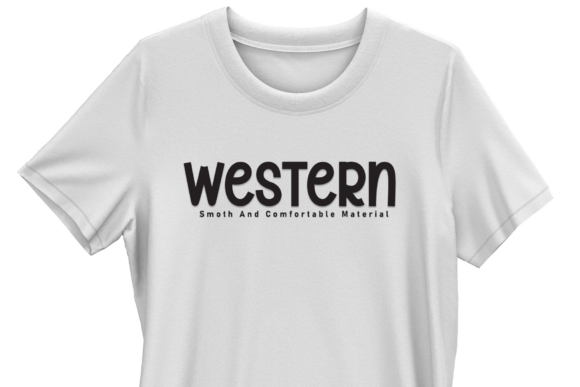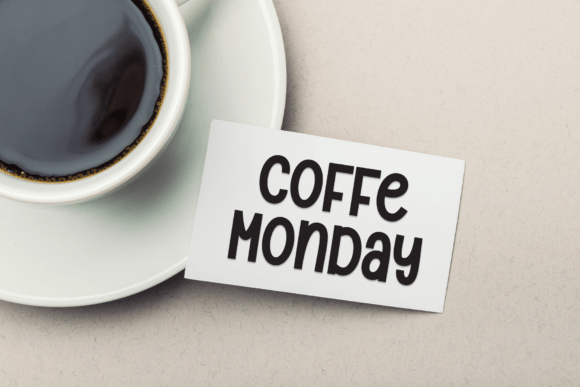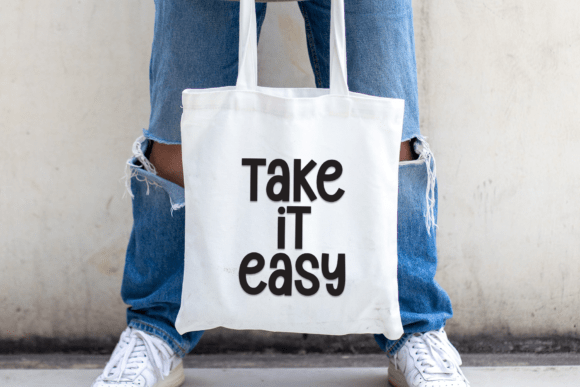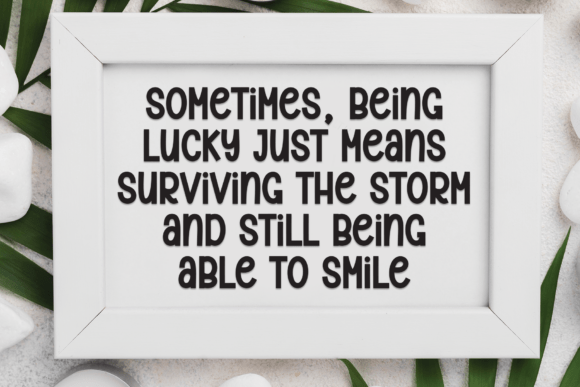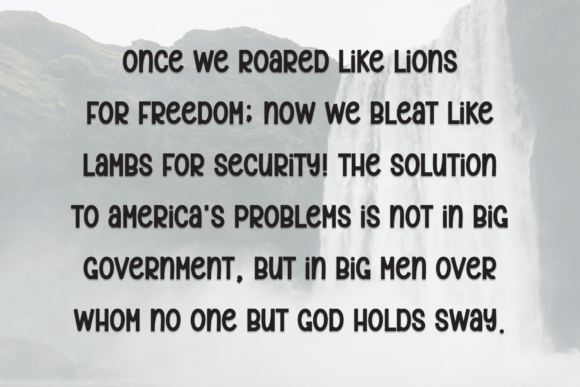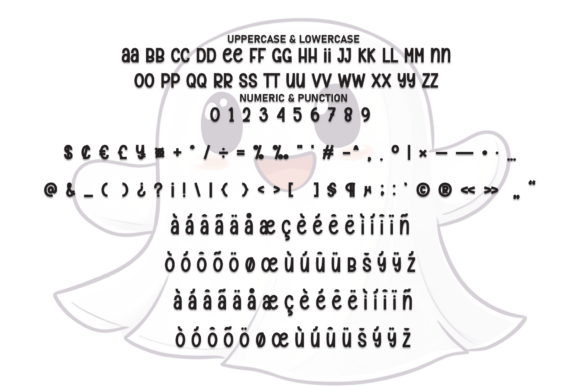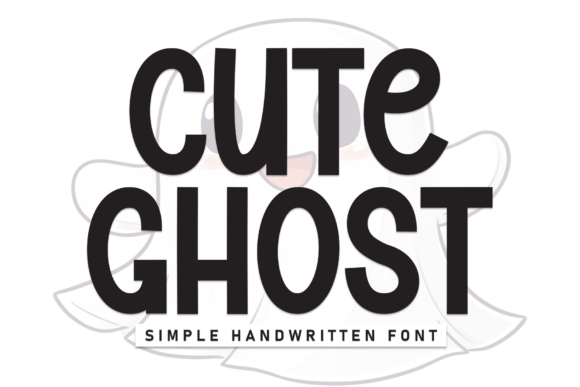
Cute Ghost Font: Adding a Touch of Whimsy to Your Designs
Are you looking for a font that can add a dash of personality to your designs? Look no further than the Cute Ghost Font, a handwritten typeface that is sure to captivate your audience with its warm and charming aesthetic. In this article, we’ll dive into the world of Cute Ghost Font and explore its unique features, uses, and benefits.
The Enchantment of Cute Ghost Font
Introducing the enchanting intimacy of a handwritten typeface that exudes a radiant blend of warmth and charm with each pen stroke – a striking epitome of delight and allure. The Cute Ghost Font is a uniquely versatile font that effortlessly instills a distinctive personal touch into wedding invitations, embodying and celebrating the unique narrative of your love journey. Its adaptability makes it an outstanding choice for assembling cards and directing creative projects that require a sprinkle of playful charisma.
What Makes Cute Ghost Font So Special?
The Cute Ghost Font is a one-of-a-kind typeface that boasts a range of characteristics that set it apart from other fonts. Here are a few reasons why it’s a standout:
- Handwritten charm: The Cute Ghost Font is a handwritten typeface that exudes warmth and personality. Each pen stroke is carefully crafted to create a sense of intimacy and connection with the reader.
- Versatility: This font is incredibly versatile and can be used for a wide range of design projects, from wedding invitations to greeting cards, and even creative projects that require a playful touch.
- Unique aesthetic: The Cute Ghost Font has a distinctive aesthetic that is both charming and alluring. Its unique blend of curves and lines creates a sense of whimsy and playfulness that is sure to captivate your audience.
Using Cute Ghost Font in Your Designs
The Cute Ghost Font is an excellent choice for designers and crafters who want to add a personal touch to their work. Here are a few ideas for using this font in your designs:
- Wedding invitations: The Cute Ghost Font is perfect for wedding invitations, as it adds a touch of romance and whimsy to the design. It’s an excellent way to set the tone for a special day and create a lasting impression on your guests.
- Greeting cards: This font is also great for greeting cards, as it adds a personal touch to the design. Whether you’re creating a birthday card, a thank-you card, or a holiday card, the Cute Ghost Font is sure to make it stand out.
- Creative projects: The Cute Ghost Font is an excellent choice for creative projects that require a playful touch. Whether you’re creating a poster, a flyer, or a social media graphic, this font is sure to add a dash of personality to your design.
Tips for Working with Cute Ghost Font
Here are a few tips for working with the Cute Ghost Font:
- Use it sparingly: While the Cute Ghost Font is charming, it’s best to use it sparingly to avoid overwhelming the design. Use it for headings or key phrases to add a touch of personality to the design.
- Pair it with other fonts: The Cute Ghost Font pairs well with other fonts, especially serif fonts. Try pairing it with a serif font for a classic look or with a sans-serif font for a modern look.
- Experiment with colors: The Cute Ghost Font looks great in a range of colors, from soft pastels to bold brights. Experiment with different colors to find the one that works best for your design.
The Cute Ghost Font is a unique and charming typeface that is sure to add a touch of personality to your designs. Its versatility, handwritten charm, and unique aesthetic make it an excellent choice for a wide range of design projects. Whether you’re a designer or a crafter, the Cute Ghost Font is sure to inspire you to create something special. So why not give it a try and see the magic it can bring to your designs?